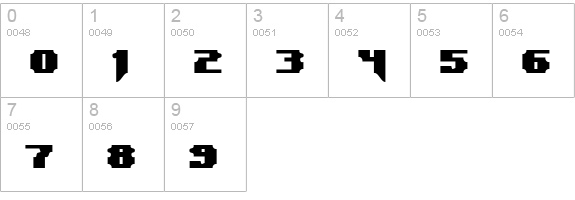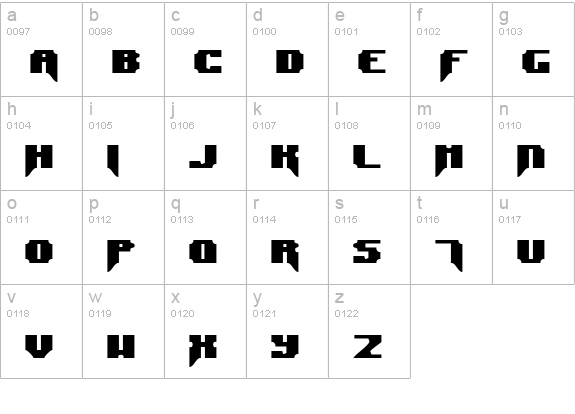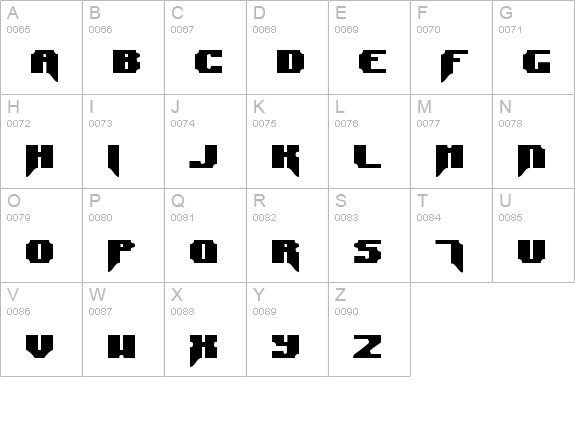
Introducing the captivating and edgy Syntax Terror font! This font exudes a perfect blend of modernity and sophistication, making it ideal for a wide range of design projects. With its sleek lines and sharp angles, Syntax Terror adds a touch of contemporary flair to any creative endeavor. The bold and commanding presence of this font is sure to make a lasting impression on your audience. The best part? Syntax Terror is available for free download exclusively at FontsMarket.com! This means that you can easily enhance your designs with this striking font without breaking the bank. Whether you're working on a logo, poster, website, or any other project, Syntax Terror is a versatile choice that will elevate your work to the next level. Don't miss out on the opportunity to add this dynamic font to your collection today!